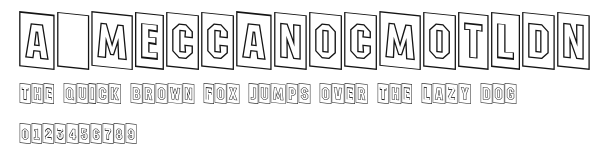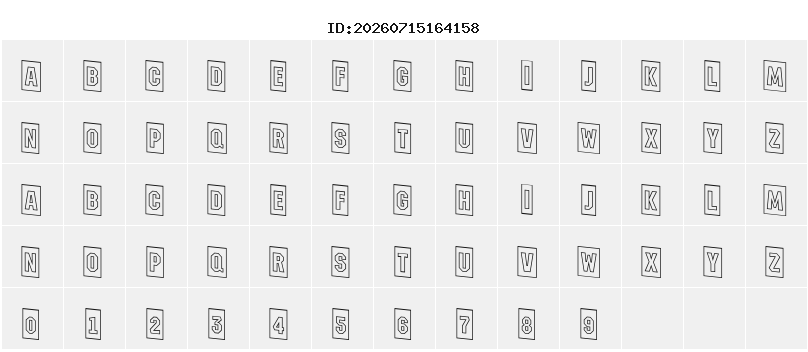
• Designer: W.Chufarofsky & M.Slutsker
About a_MeccanoCmOtlDn.ttf
a_MeccanoCmOtlDn.ttf is a modern, elegant sans-serif font designed for ultimate readability and visual harmony. Perfect for branding, headlines, web design, and print materials.